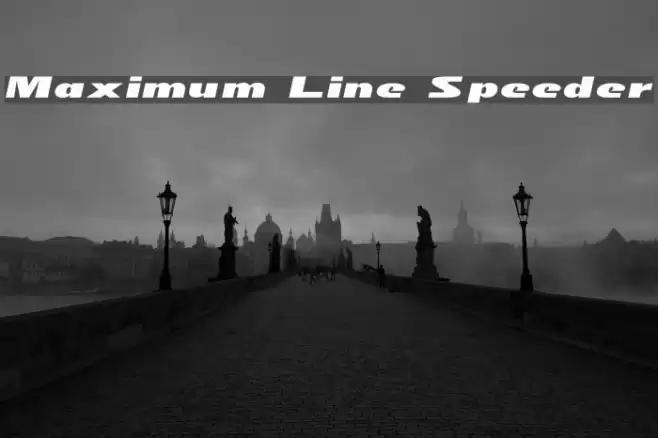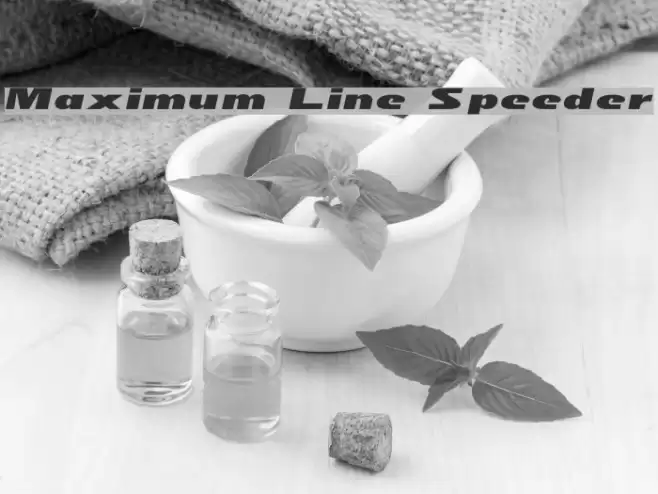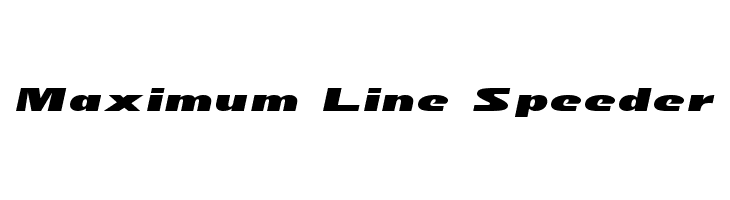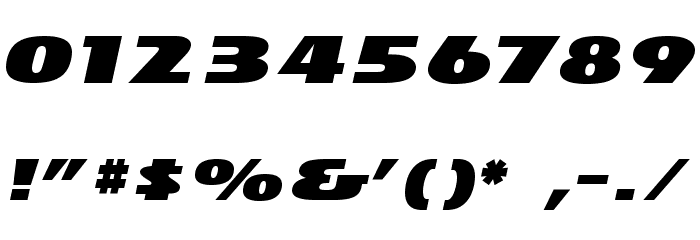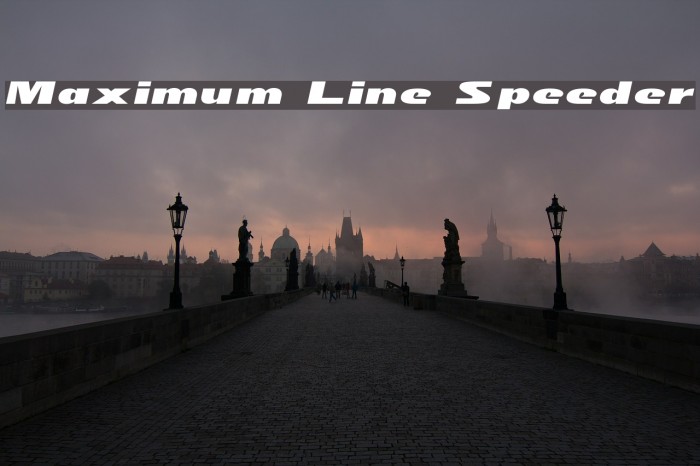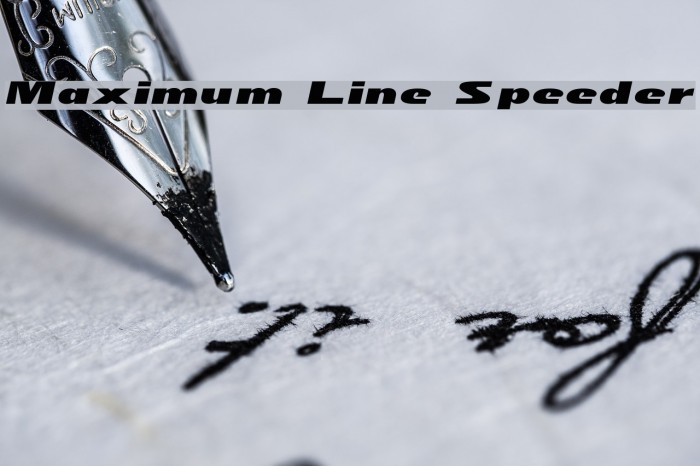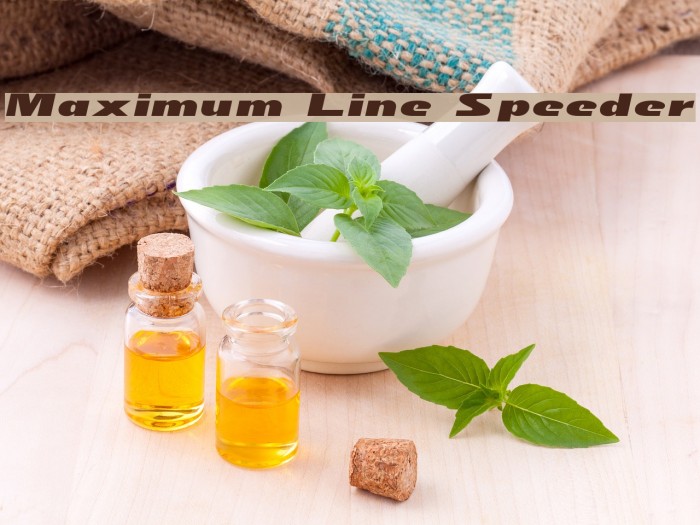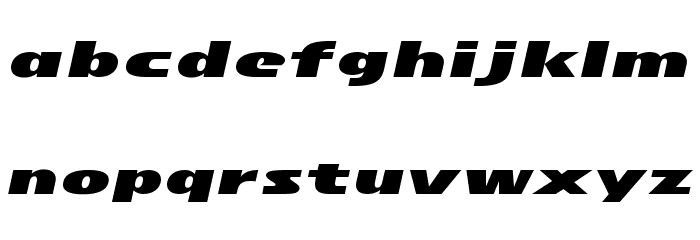
Maximum Line Speeder Font
Maximum Line Speeder Description
This font exudes a dynamic and energetic style, characterized by its bold and italicized letterforms. The characters are slightly slanted, giving a sense of motion and speed. The strokes are thick and consistent, providing a strong visual impact. The uppercase and lowercase letters maintain a cohesive design, with rounded edges and a modern flair. The numerals and special characters follow the same stylistic cues, ensuring uniformity across all glyphs. This font is ideal for projects that require a bold statement and a contemporary look.
A bold, italicized font with a dynamic and modern style from Uncategorized fonts.
- Proposed Projects: Ideal for sports branding, automotive advertisements, dynamic posters, and modern logos.